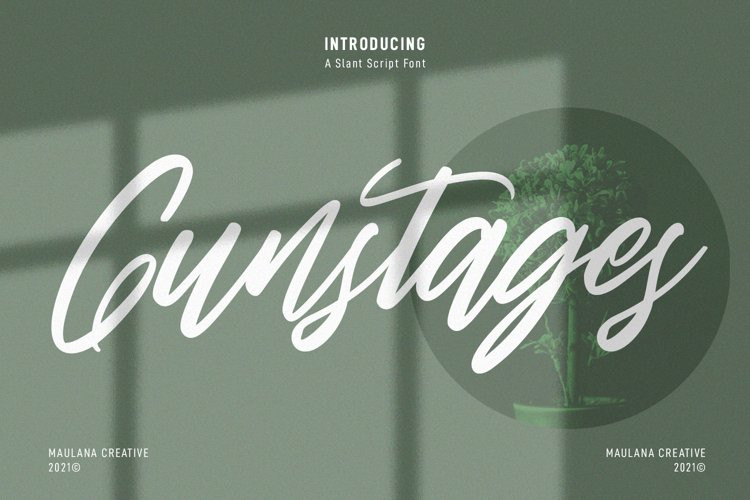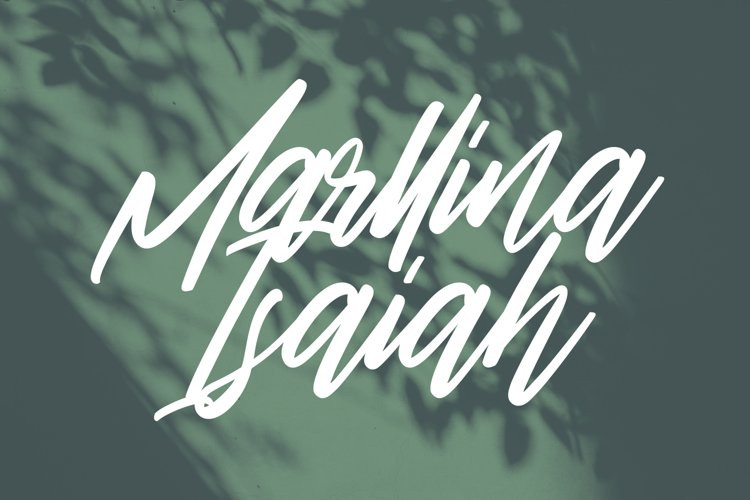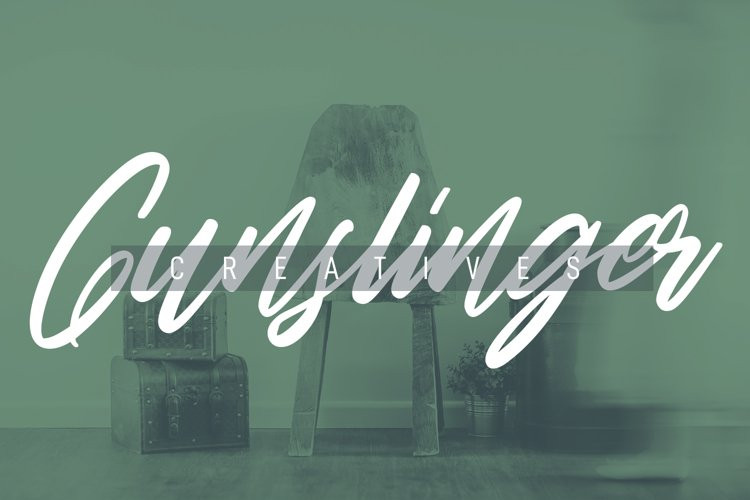
Gunstages Font
Gunstages FontGunstages is a casual slanted script font. With regular contrast stroke, fun character with some of ligatures. To give you an extra creative work. Gunstages font support multilingual more than 100+ language. This font is good for logo design, Social media, Movie Titles, Books Titles, a short text even a long text letter and good for your secondary text font with sans or serif. Make a stunning work with Gunstages font.